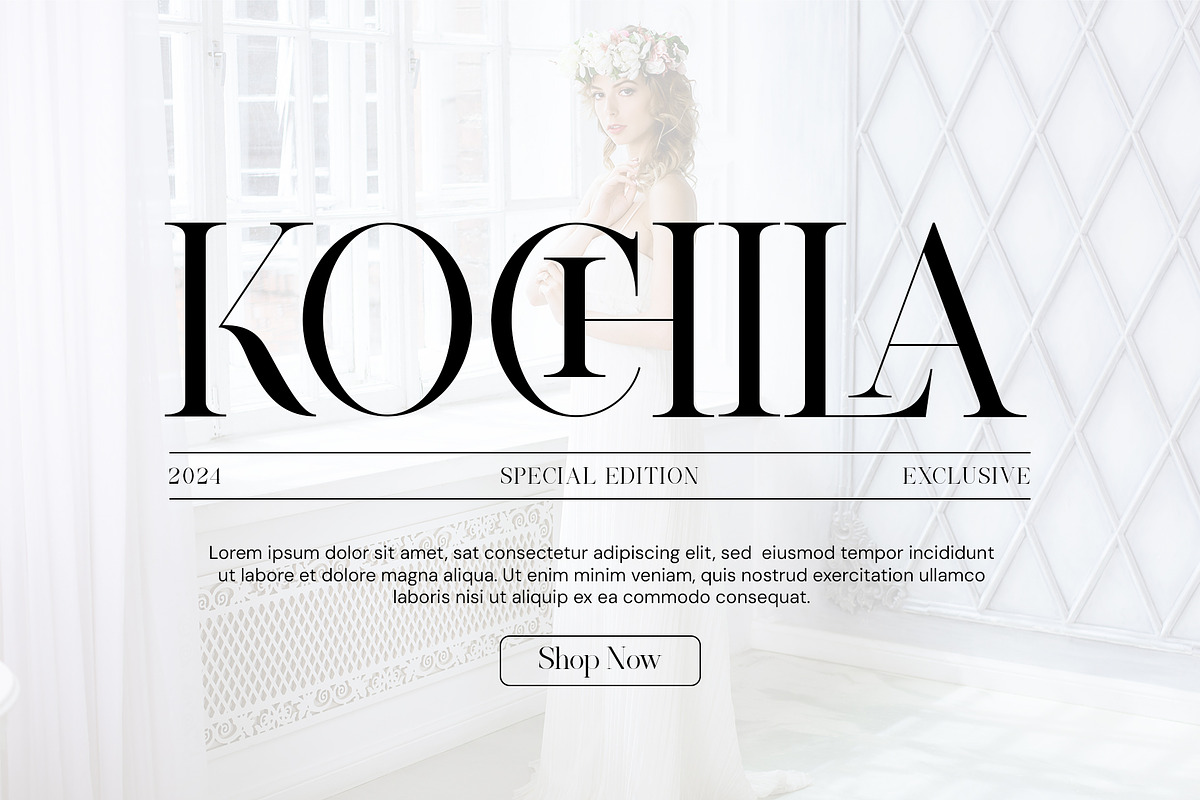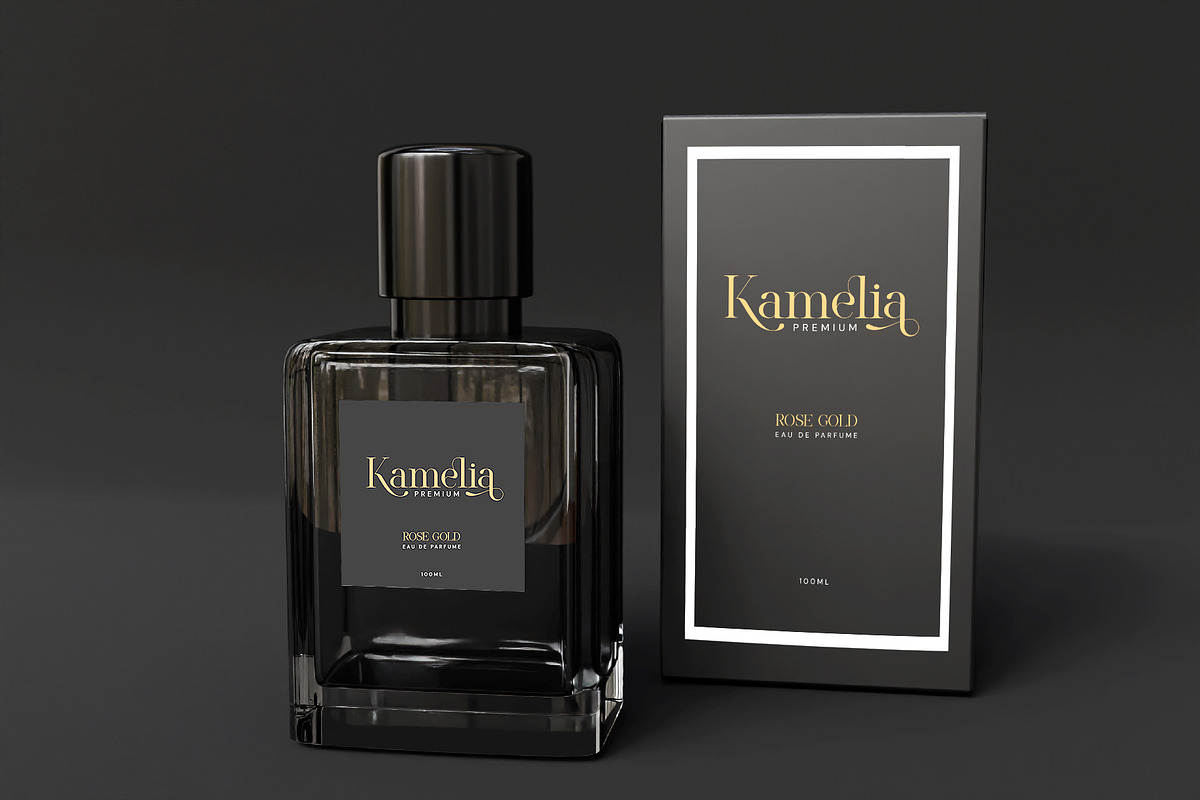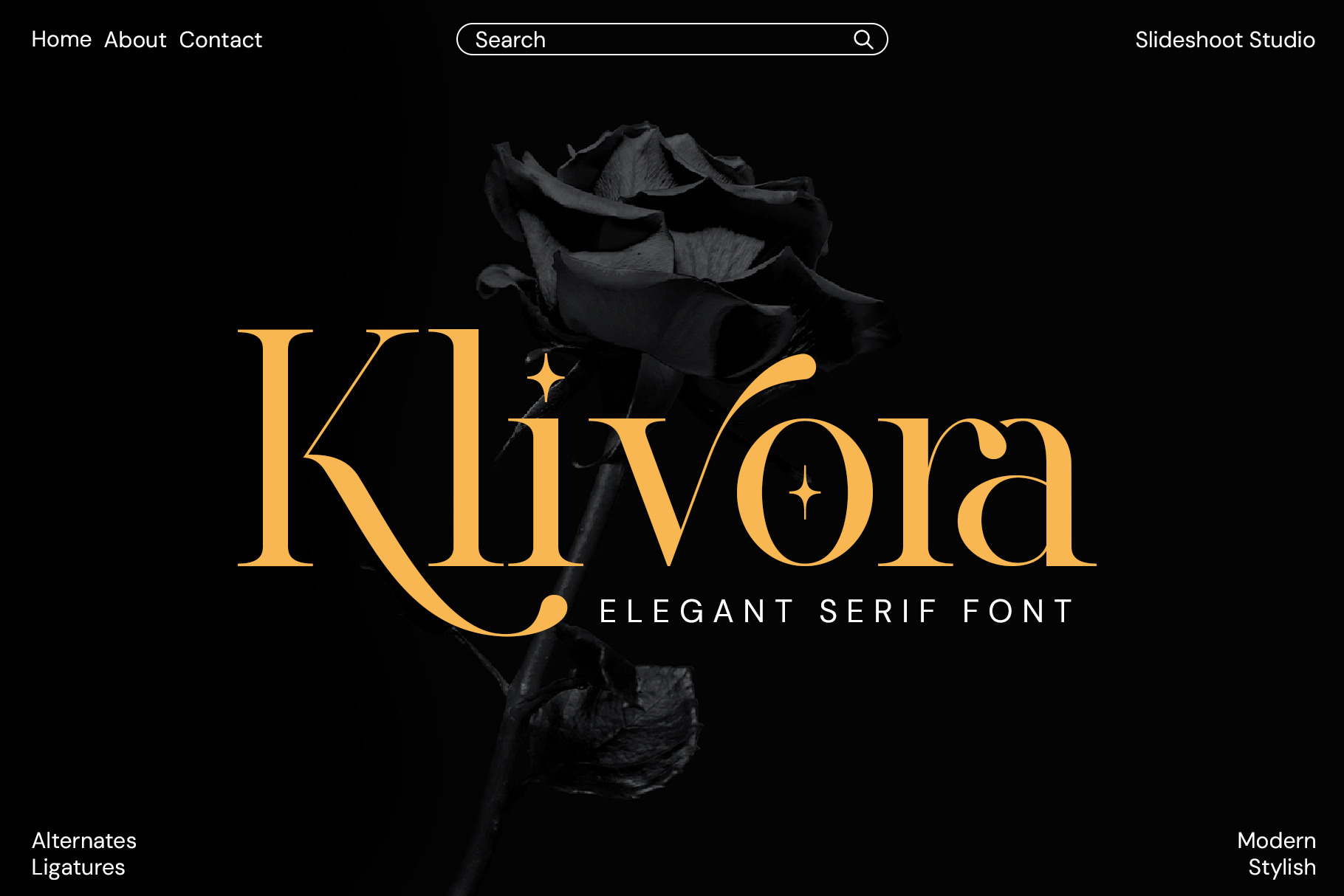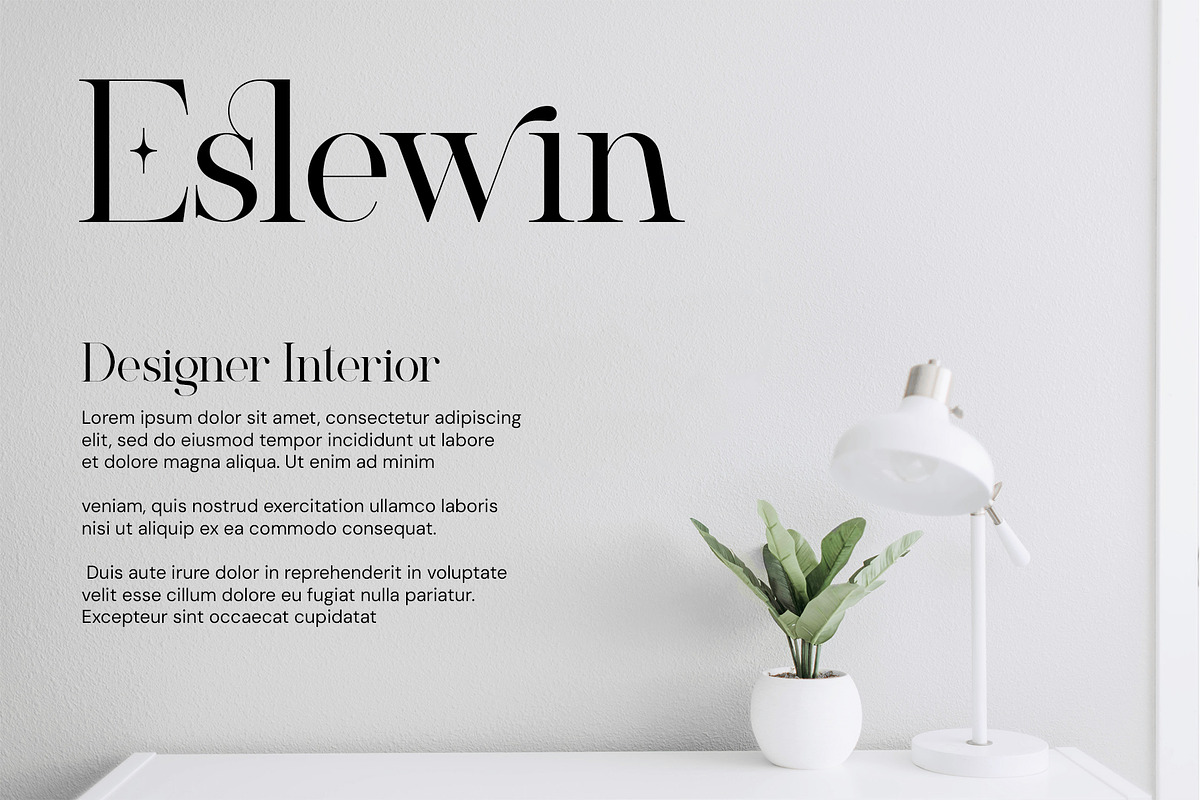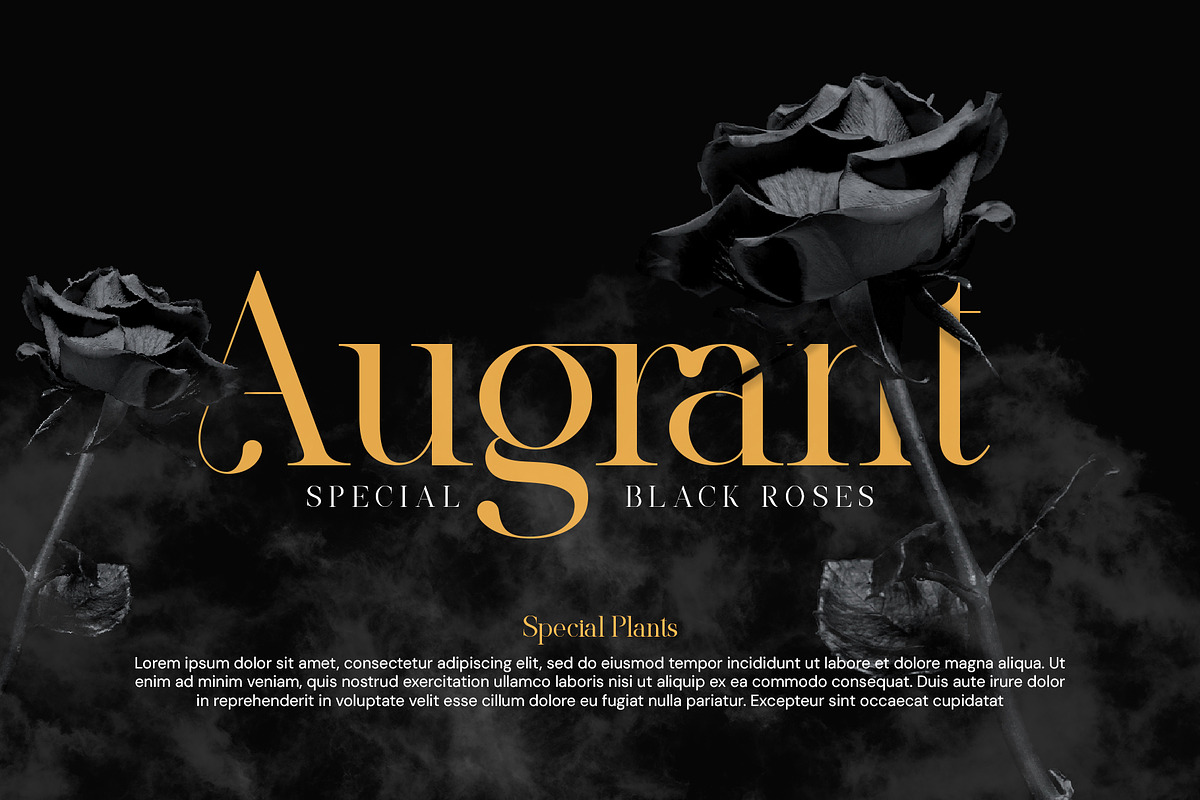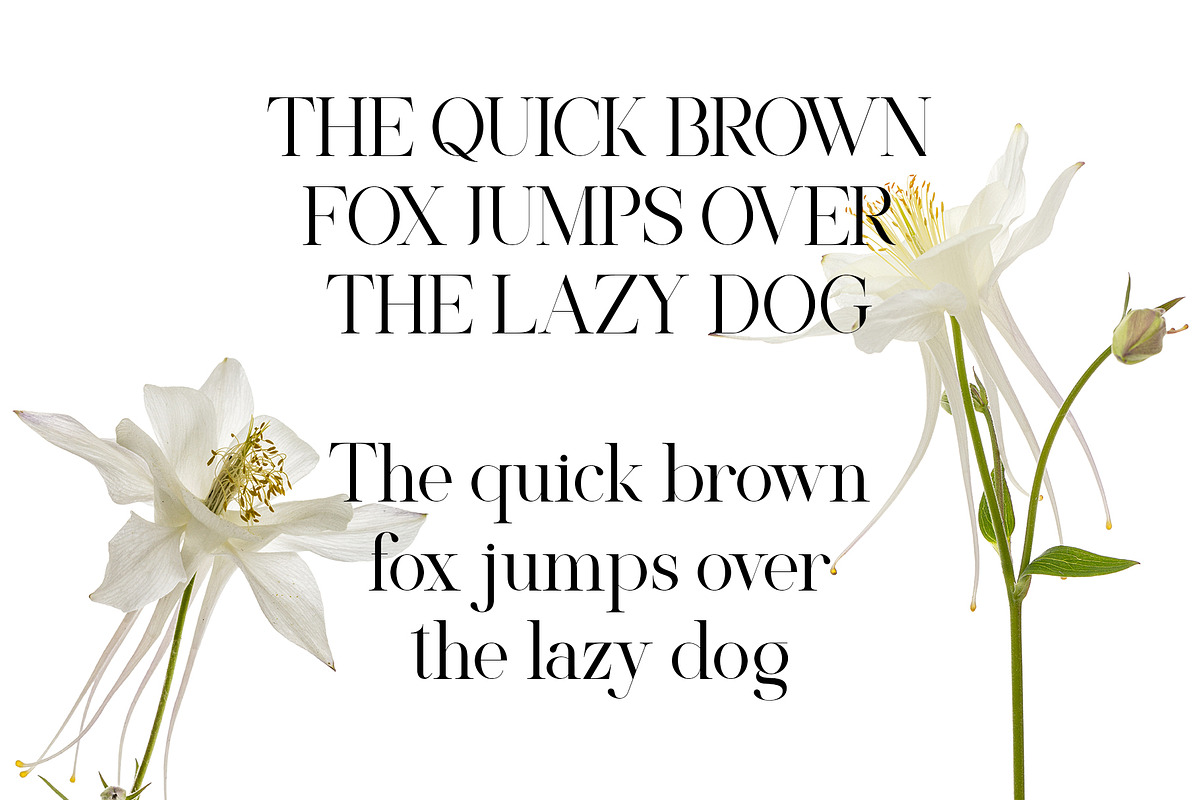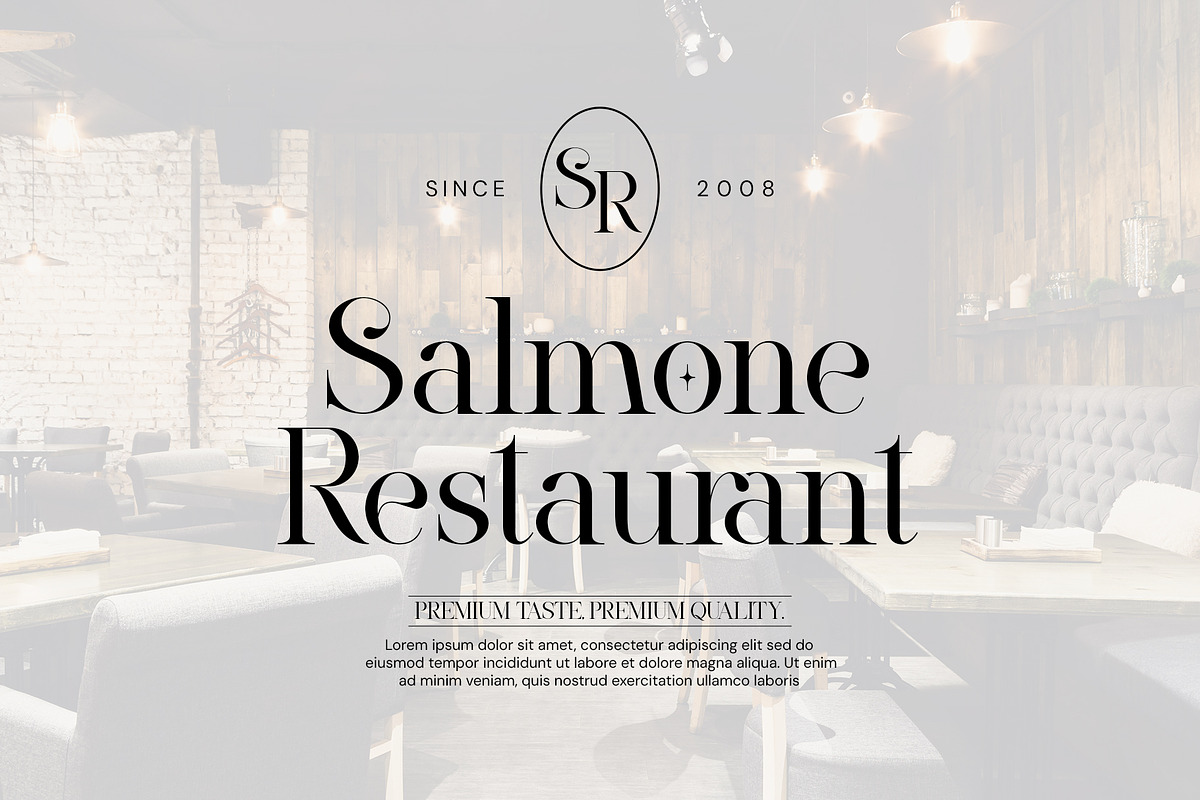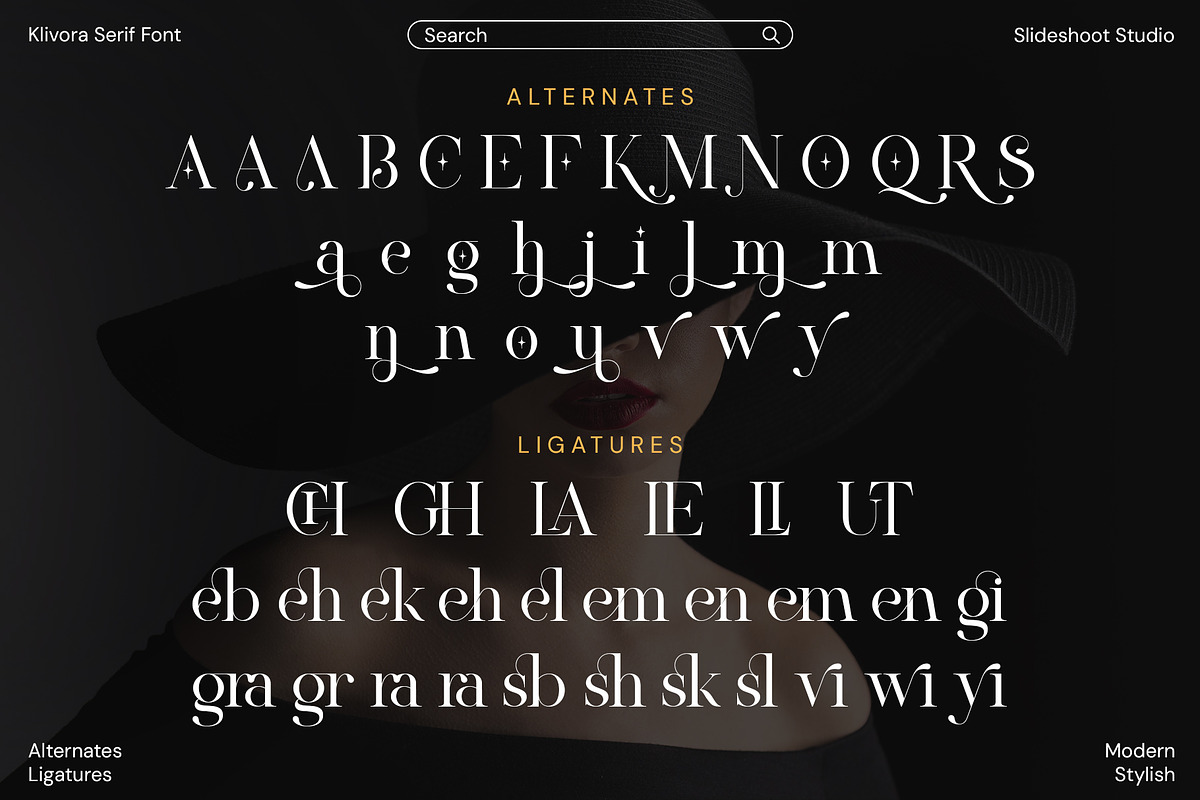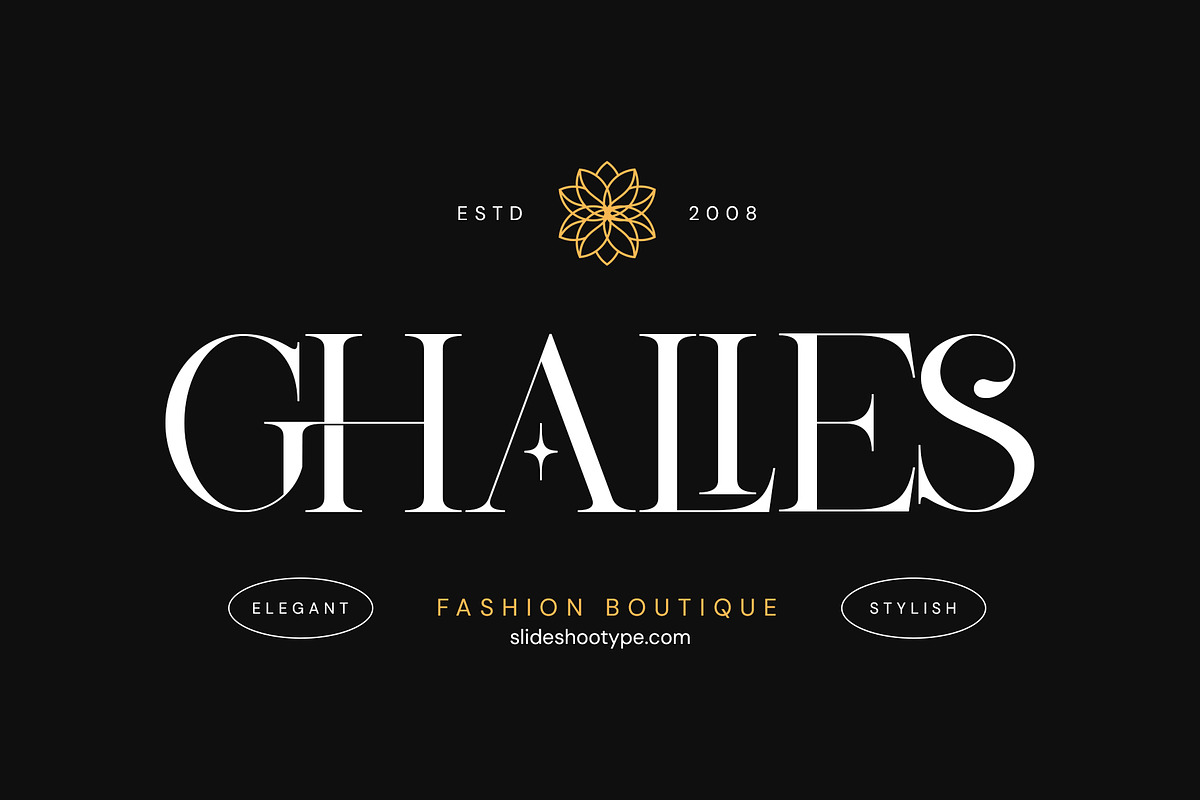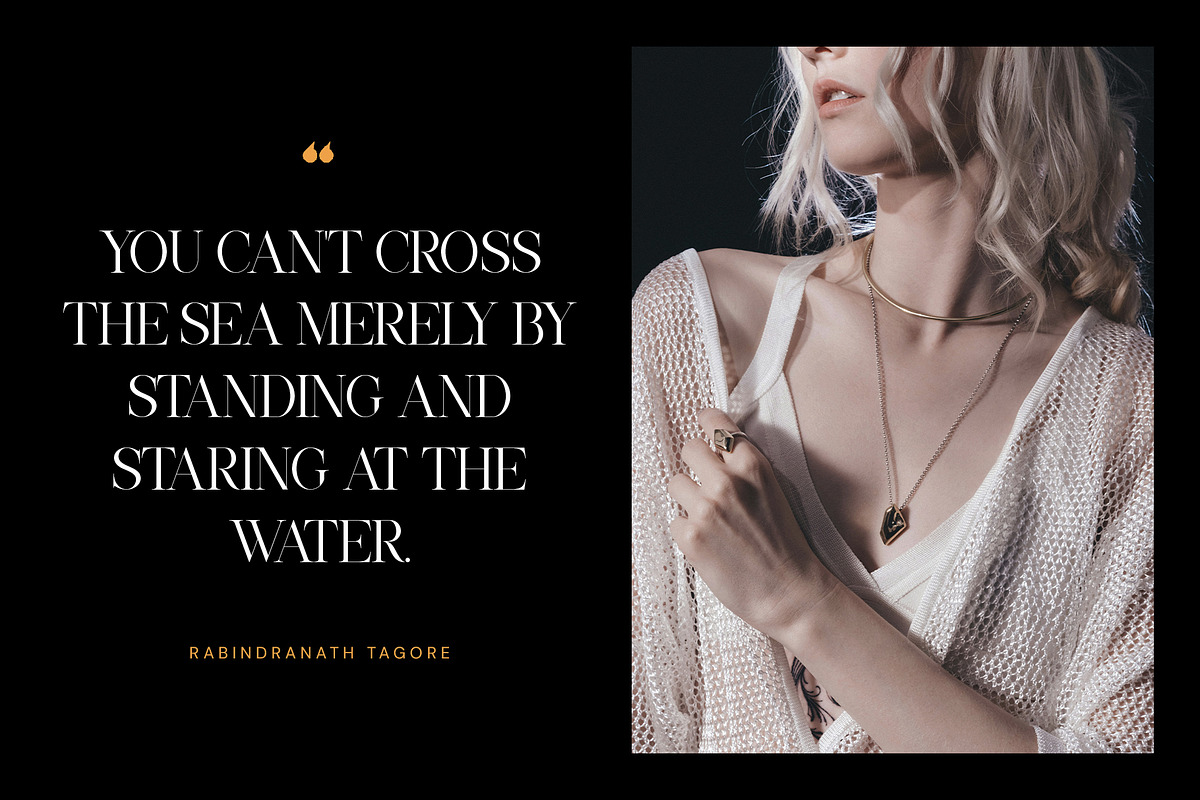
Klivora - Elegant Serif Font
Klivora Serif is a balanced, smooth, elegant and stylish serif font. He has a beautiful character. Very suitable to be combined with invitation card designs, company logos, film titles, film names, business cards, book titles, brand names and various other designs. Klivora Serif is a smooth serif font that exudes Font sophistication. Its stylish alternation and binding make this font the perfect partner for any project.